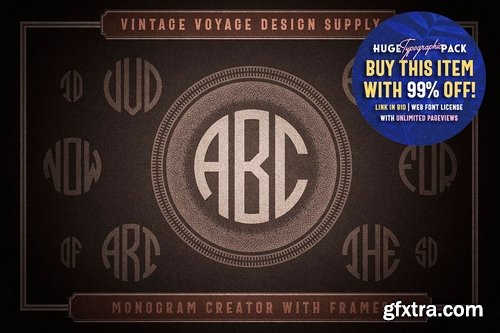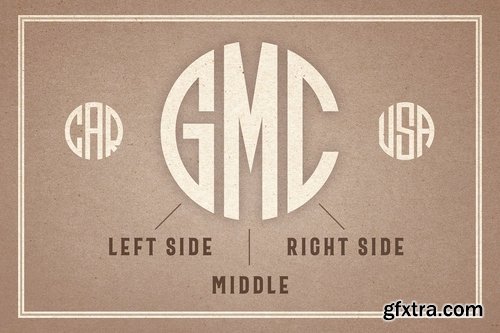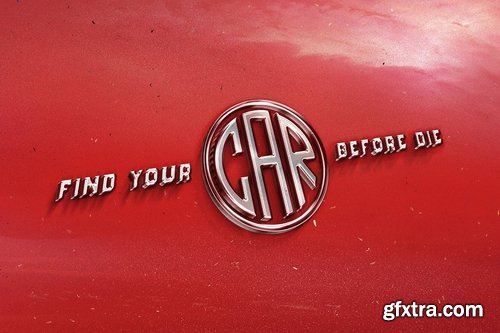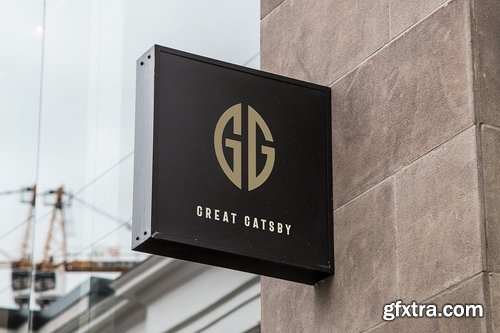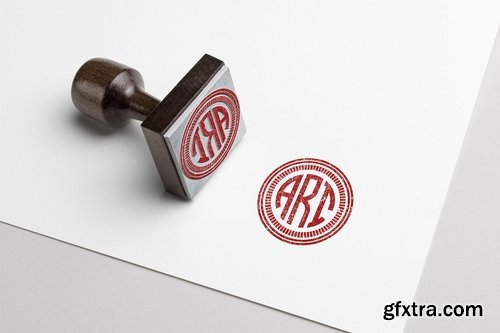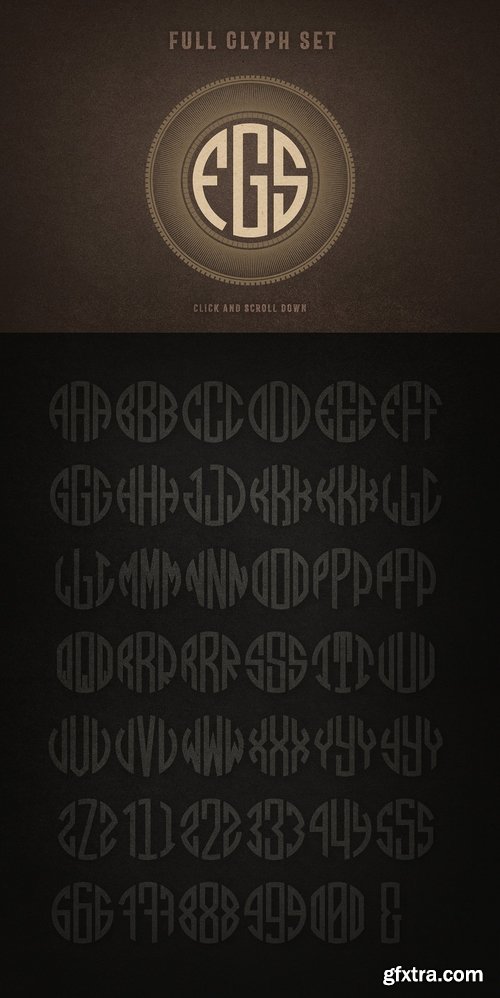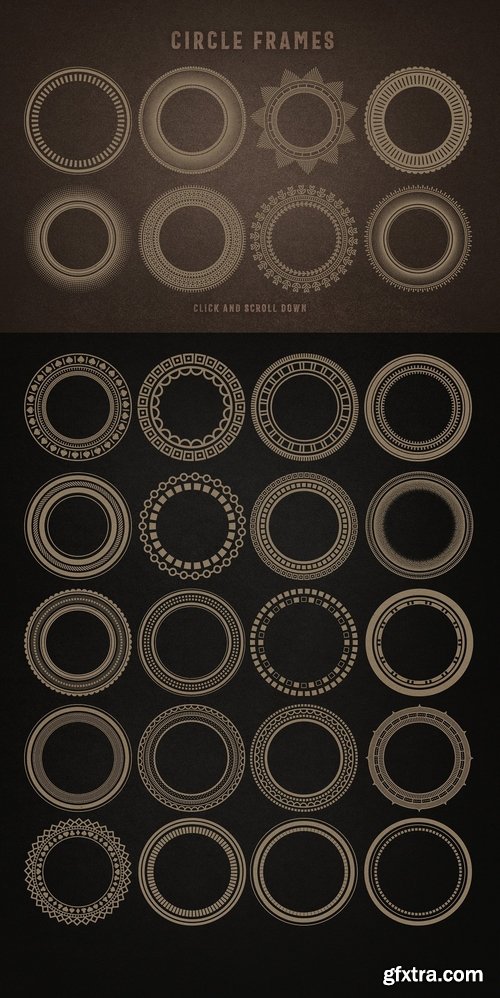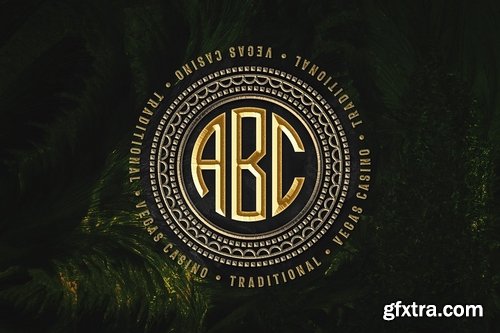
Happy New Year and Glad to Introducing you my first product in this year - Monogram Creator with Frames!
This is a Three typefaces to create Two- or three-letter monograms with full basic latin set with numerals and middle ampersand. Also you get set of 28 Circle decorate borders in Ai and PNG. Easy solution to get simple XX mid-century sans monogram. Some letter has two different style (lowercase and uppercase).
It couldn't be simpler to use, just type your letters with the font and choose your favourite border to complete the monogram.